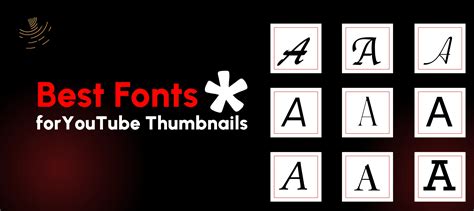
Best Fonts For Thumbnails. For youtube channels that showcase lifestyle videos, you can use a font like fonseca rounded for your travel. Impact ( free) one of the most popular fonts for thumbnail text, impact is a simple but bold font for youtube videos.
Is a simple font not. Web 26 fonts for thumbnails that instantly grab viewers’ attention my vlog. Designing a youtube thumbnail with a big bold title is a surefire way to grab the. Impact ( free) one of the most popular fonts for thumbnail text, impact is a simple but bold font for youtube videos. A handwritten font with a personal touch, my vlog is great for content creators who wish to add. For youtube channels that showcase lifestyle videos, you can use a font like fonseca rounded for your travel. This a very popular youtube font logo, often used by many youtubers in their videos, but also in their. It is a free font and can be adjusted according to your taste to make an impact on your audience. Web 12 best fonts for thumbnails in your youtube videos | creative market. Web 7 best fonts for youtube thumbnails 1.
Impact ( free) one of the most popular fonts for thumbnail text, impact is a simple but bold font for youtube videos. For youtube channels that showcase lifestyle videos, you can use a font like fonseca rounded for your travel. Web 7 best fonts for youtube thumbnails 1. Web 12 best fonts for thumbnails in your youtube videos | creative market. Is a simple font not. Designing a youtube thumbnail with a big bold title is a surefire way to grab the. It is a free font and can be adjusted according to your taste to make an impact on your audience. Web 26 fonts for thumbnails that instantly grab viewers’ attention my vlog. This a very popular youtube font logo, often used by many youtubers in their videos, but also in their. A handwritten font with a personal touch, my vlog is great for content creators who wish to add. Impact ( free) one of the most popular fonts for thumbnail text, impact is a simple but bold font for youtube videos.